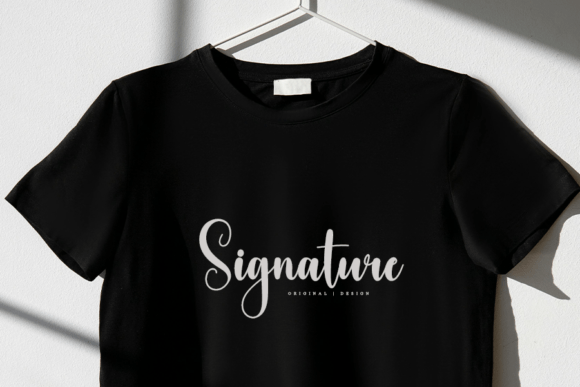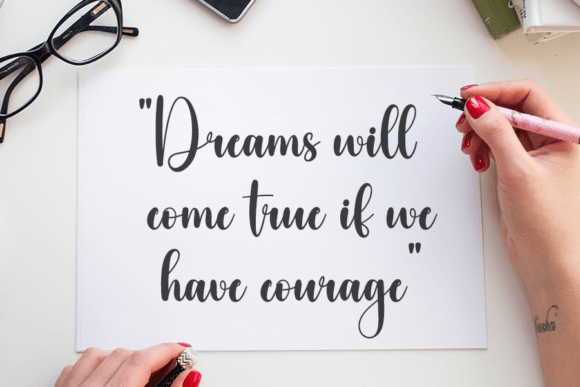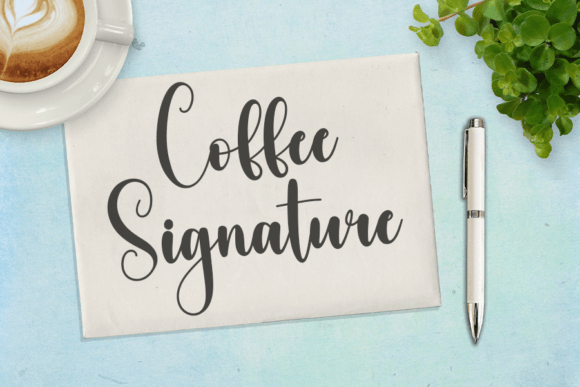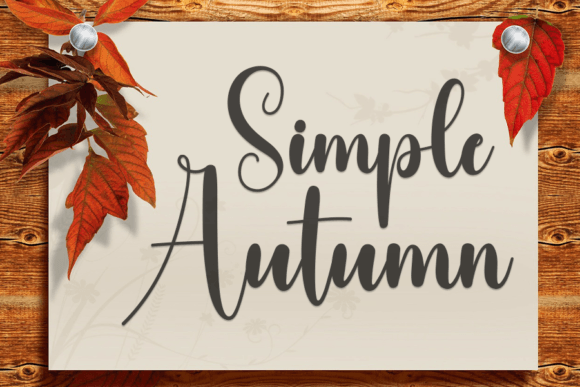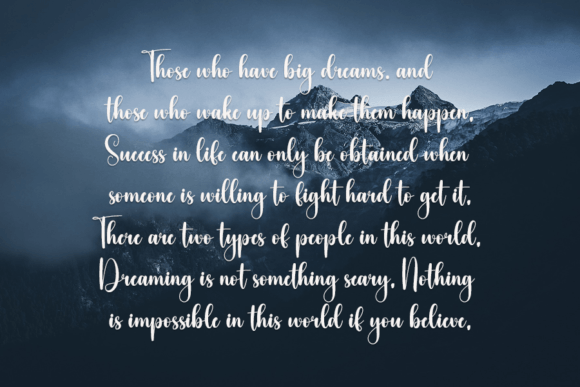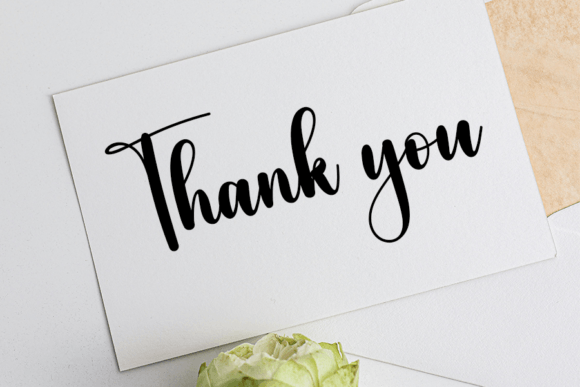
Introduction to Pumpkin Halloween Font
As you’re brainstorming ideas for your next creative project, have you ever found yourself staring at a blank page, desperately searching for the perfect design element to bring your vision to life? This is where the magic of fonts comes in – and today, we’re excited to introduce you to a real showstopper: the Pumpkin Halloween Font. This charming, handwritten font is the perfect addition to any design, from invitations and titles to food products and more.
With its delicate, high-quality design and transparent background, the Pumpkin Halloween Font is a valuable resource for designers looking to add a touch of whimsy and personality to their work. And the best part? It’s available for free download, making it an accessible design resource for creatives of all levels.
Whether you’re working on a spooky-themed project or simply want to add some seasonal flair to your designs, the Pumpkin Halloween Font is sure to be a hit. So why settle for a generic font when you can add a little bit of magic to your work?
Key Features of Pumpkin Halloween Font
- Pumpkin Halloween Font is a unique design resource that offers a spooky and festive atmosphere for your creative project.
- It features a transparent background, making it easy to layer over any image or design.
- This high-quality font is available for free download and includes a range of characters and symbols to create a fun and playful design.
- The Pumpkin Halloween Font is a great addition to any design project that requires a seasonal or spooky theme, making it perfect for Halloween decorations, party invitations, and more.
Honest Review: Pumpkin Halloween Font
I recently stumbled upon the Pumpkin Halloween Font, and I must say, it’s a great addition to any design resource. The font’s playful and whimsical design is perfect for creative projects that require a touch of Halloween magic.
The font is available for a free download, which is a huge plus. The high quality of the font is evident in its crisp lines and detailed textures. The transparent background option is also a great feature, allowing for seamless integration into any design.
- Playful and whimsical design perfect for Halloween-themed projects
- High-quality font with crisp lines and detailed textures
- Transparent background option for easy integration
- The font is limited to Halloween-themed projects, which may not be suitable for other types of designs
- The font’s design may be too playful for some projects, which could detract from the overall message
Overall, I’m impressed with the Pumpkin Halloween Font. It’s a great addition to any design resource, and the free download option makes it accessible to designers of all levels. While it may have some limitations, it’s a valuable resource for any designer working on Halloween-themed projects.
Pumpkin Halloween Font
The Pumpkin Halloween Font is a versatile design resource perfect for your next creative project. This high-quality font is available for free download, making it an ideal choice for designers and non-designers alike.
To get the most out of the Pumpkin Halloween Font, try using it with a transparent background to create a spooky effect. You can also combine it with other design elements, such as icons and graphics, to create a cohesive look.
The Pumpkin Halloween Font is perfect for a variety of creative projects, including:
- Halloween party invitations
- Spooky social media posts
- Haunted house signs
- Ghostly graphics